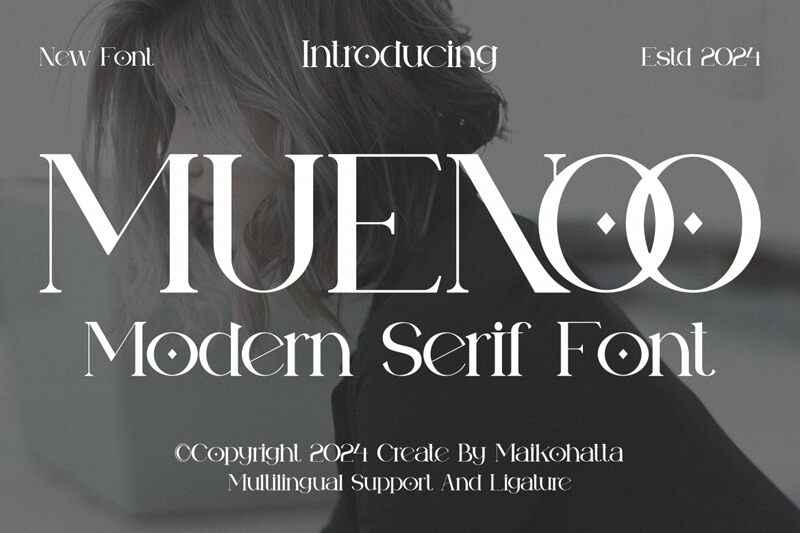
Muenoo font family is a contemporary serif from Gilang Ternadho, with two font styles. This sophisticated and modern font has decorative elements that add an innovative touch to the geometric base of its characters. Muenoo has a sleek, refined appeal that is an excellent match for professional design work. These secondary features emphasize its possibilities across the elegant body.
The font has versatile and dynamic applications way beyond books and magazines. Use it in business cards, packaging, posters, advertisements, or websites. Muenoo is equally noted in publication titles or as part of a corporate identity.